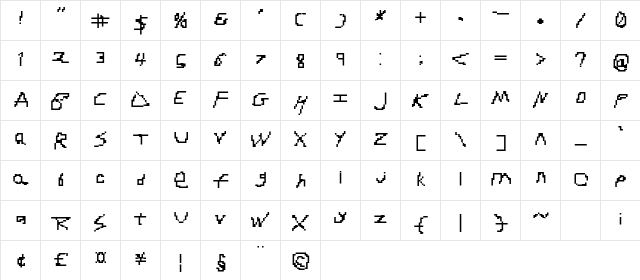
Design Context for RDJ-Hand Typeface
RDJ-Hand flows with the natural rhythm of handwritten lettering, making it ideal for designs that call for warmth and personal expression.
Font Pairing: Combine RDJ-Hand with a simple geometric sans for maximum contrast — the tension between flowing curves and clean structure is a classic typographic pairing.
Pro Tip: Use RDJ-Hand for short runs of text — names, titles, or taglines. Extended body copy in script faces tires the eye quickly.